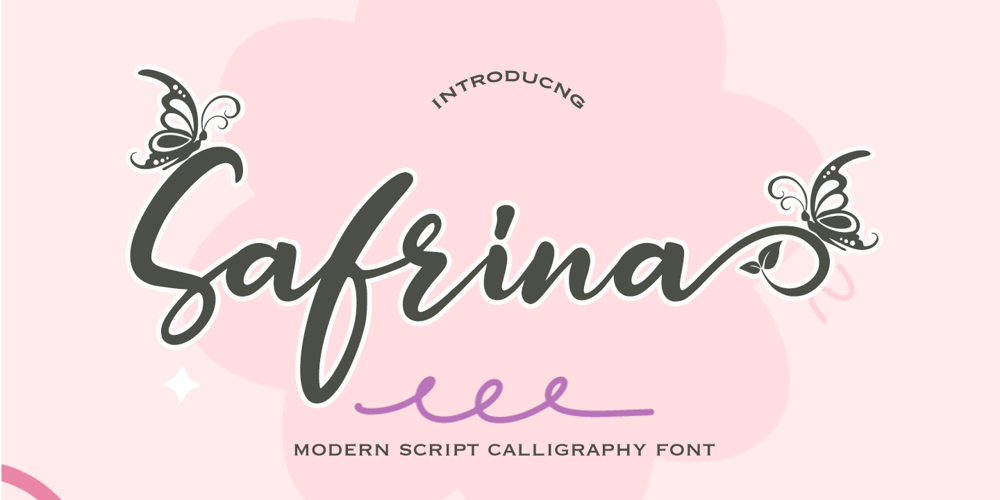
Safrina Font Family was designed by Muhammad Zaini and published by Cocodesign. Safrina contains 1 styles and family package options. Safrina Script is a modern calligraphy design, including Regular. This font is casual and beautiful with swash. Can be used for various purposes. such as logos, product packaging, wedding invitations, branding, headlines, signage, labels, signatures, book covers, posters, quotes, and more.Safrinal Script includes a change of the OpenType language style, binding and international support for most Western languages. To activate the OpenType Stylistic alternative, you need a program that supports OpenType features such as Adobe Illustrator CS, Adobe Indesign & CorelDraw X6-X7, Microsoft Word 2010 or newer versions. How to access all alternative characters using Adobe Illustrator: